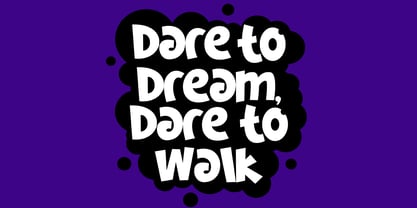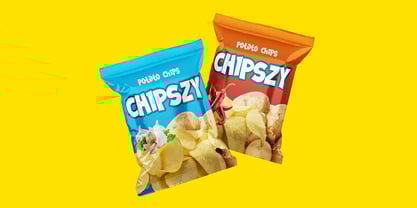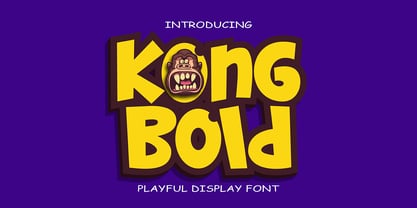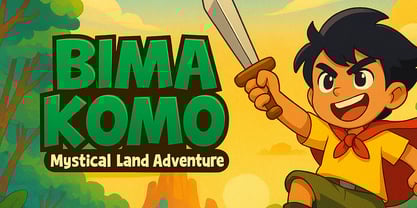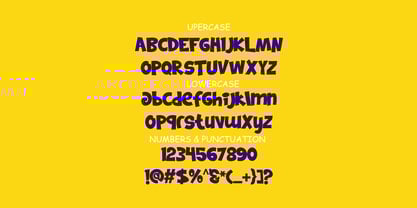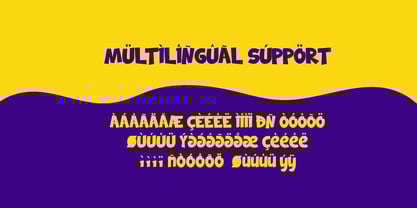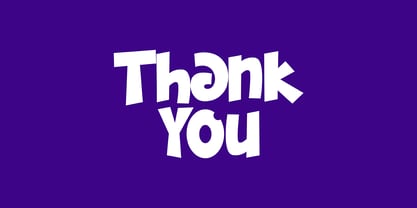
Kong Bold
by Sipanji21
The Kong Bold Font Family was designed by Sipanji and published by Sipanji21. Kong Bold contains 1 styles.
Kong Bold is a playful bold display font that captures the essence of fun, humor, and bold creativity. Inspired by cartoon lettering and friendly character design, Kong Bold features thick, chunky shapes with exaggerated forms that bring energy and joy to any project. It is a typeface designed to stand out, making it an excellent choice for designs that aim to be eye-catching, memorable, and full of personality.
Perfect for children’s products, comic books, animated titles, and playful branding, Kong Bold adds a whimsical yet strong touch to your typography. Its bold structure makes it easy to read at large sizes, while its quirky details keep the style entertaining and approachable. From toy packaging and colorful posters to gaming interfaces and social media content, Kong Bold delivers a lively impact that keeps audiences engaged.
Beyond its playful appearance, Kong Bold is also a versatile tool for modern designers. It works seamlessly across print and digital platforms, ensuring that your message is not only expressive but also highly legible. Whether you’re developing a logo, creating educational material, or producing merchandise, this font adapts beautifully to different design needs. Its thick strokes and bold outlines allow you to layer effects, experiment with colors, and push the boundaries of creativity without losing readability.
Kong Bold is more than just a font – it’s a design companion that elevates your work with charm and humor. It embodies the spirit of play, making it the perfect choice for brands, creators, and projects that want to project warmth, friendliness, and positivity. For designers seeking a display font that is both powerful and playful, Kong Bold offers a balance of fun and function, ensuring your work always stands out in a bold and unforgettable way.